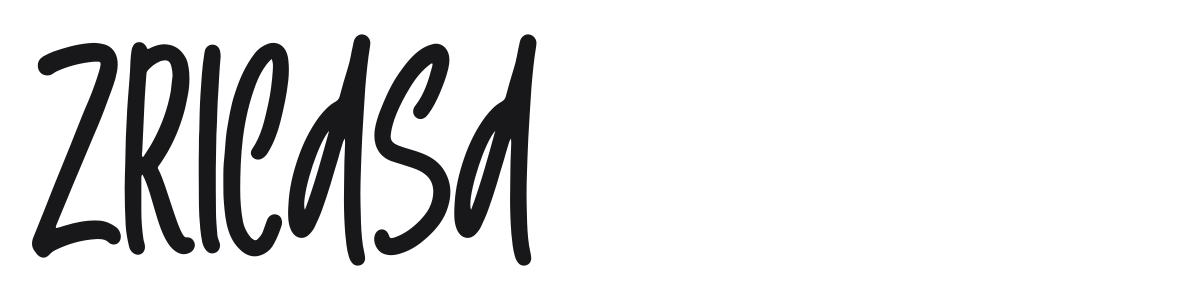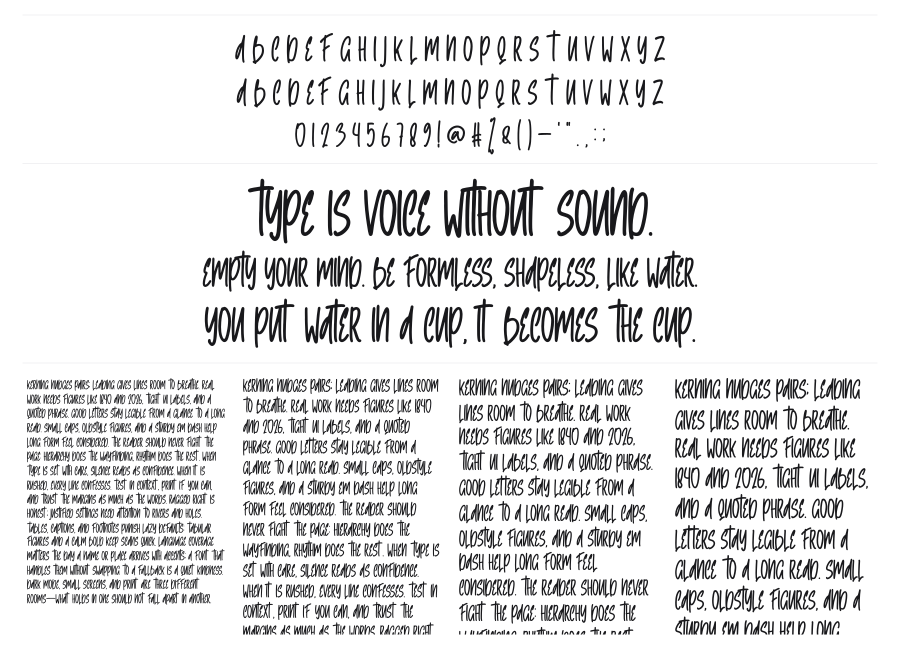
Zricasa
Zricasa is a bold upright casual script from Skiiller Studio with a raw, hand-lettered energy. The near-monoweight strokes and irregular, spontaneous terminals give it an authentic handmade feel that stands out from cleaner brush scripts. It works well at large sizes for branding, posters, and packaging that want a youthful or street-influenced personality.